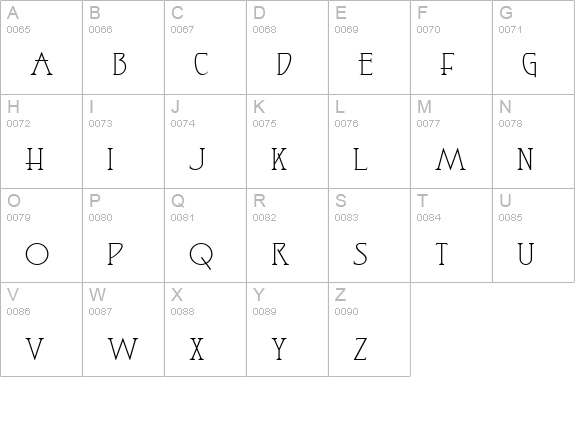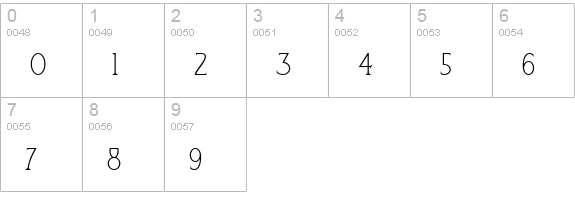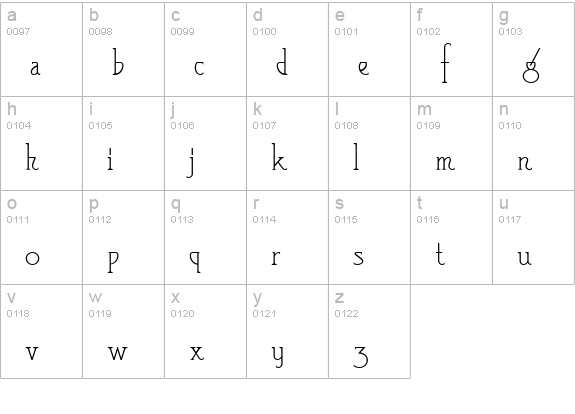
SophisticatedLadyNF Font Details
SophisticatedLadyNF is a font that exudes elegance, class, and a touch of sophistication. With its beautifully crafted letterforms, this font is perfect for adding a touch of refinement to any project. Each character is carefully designed to capture the essence of sophistication, with intricate details and graceful curves. This font is not only visually stunning, but it also offers a sense of versatility. Whether you are creating elegant invitations, stylish logos, or sophisticated headlines, SophisticatedLadyNF is the perfect choice. Its timeless appeal makes it suitable for a wide range of design projects, from high-end fashion magazines to luxurious branding. One of the best parts about SophisticatedLadyNF is that it is free. Yes, you read that right. This font is freely available to download at FontsMarket.com. Now, you can add a touch of sophistication to your designs without breaking the bank. Simply head over to FontsMarket.com, download the font, and start creating stunning visual masterpieces. Don't miss out on the opportunity to elevate your designs with the elegance and class that SophisticatedLadyNF brings. Download this remarkable font for free today and let your creativity shine.